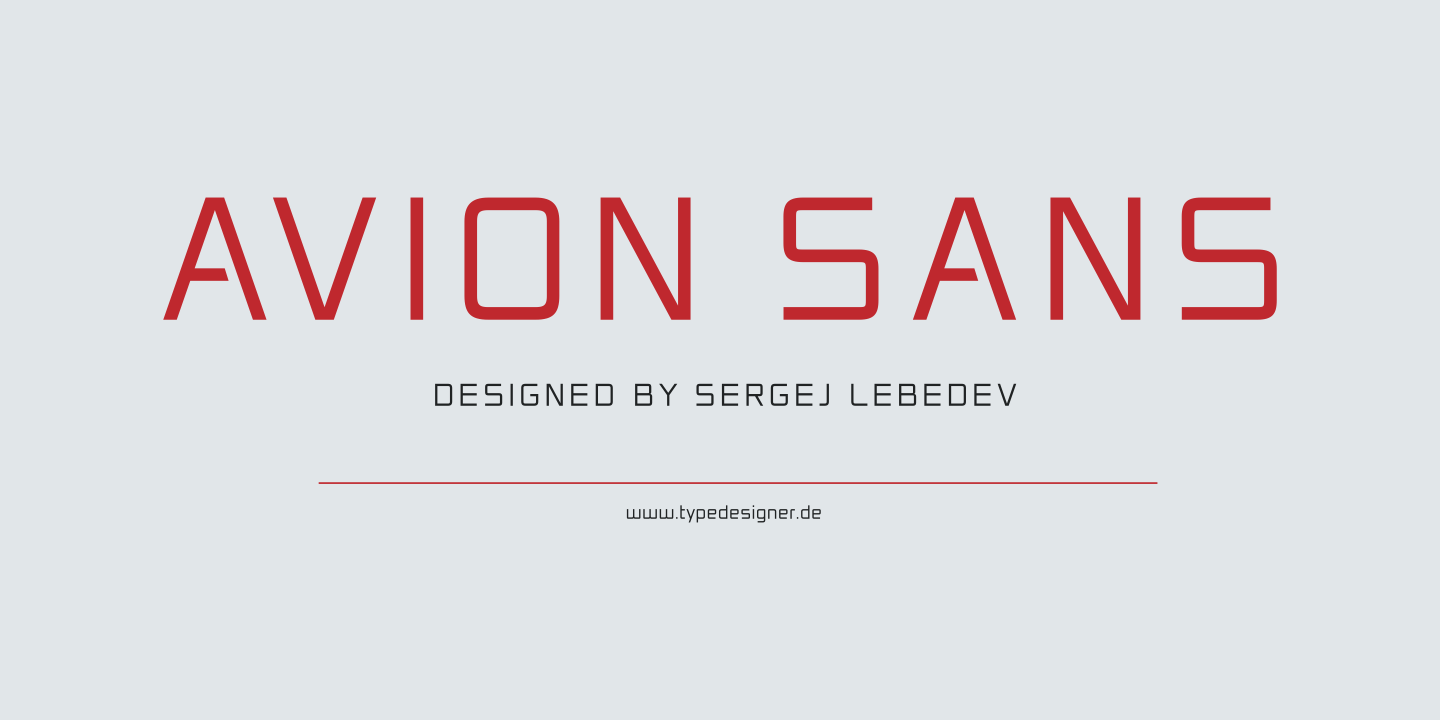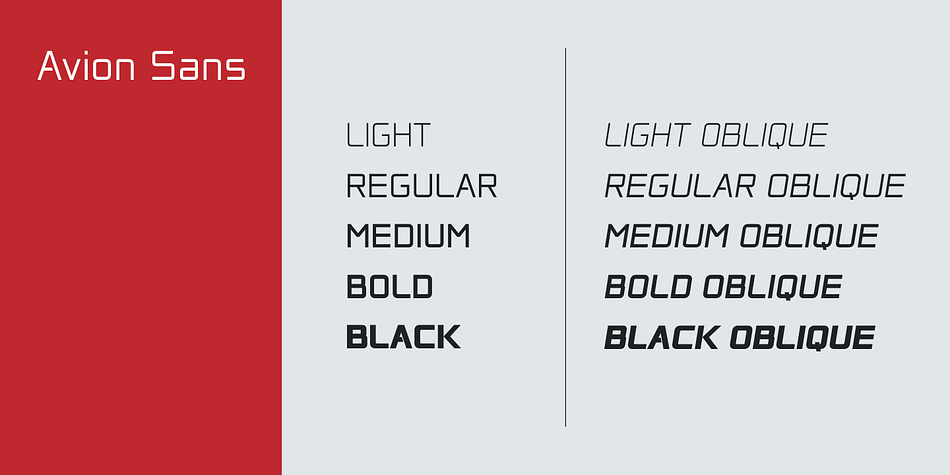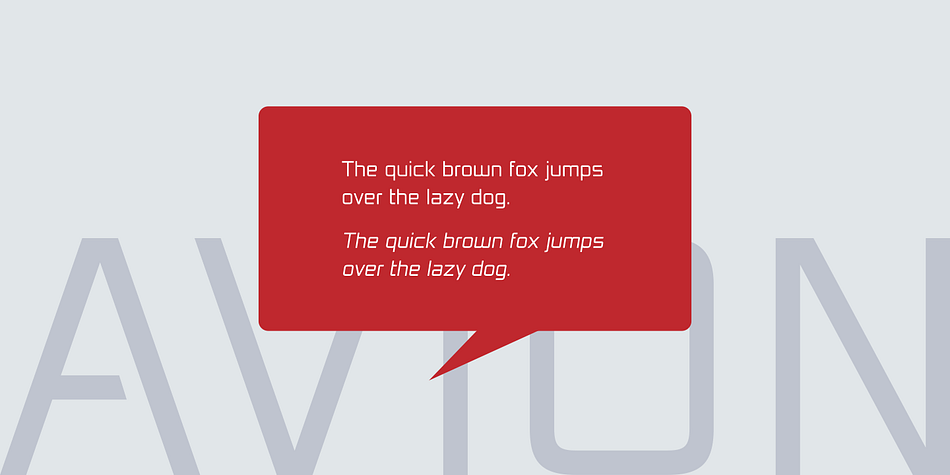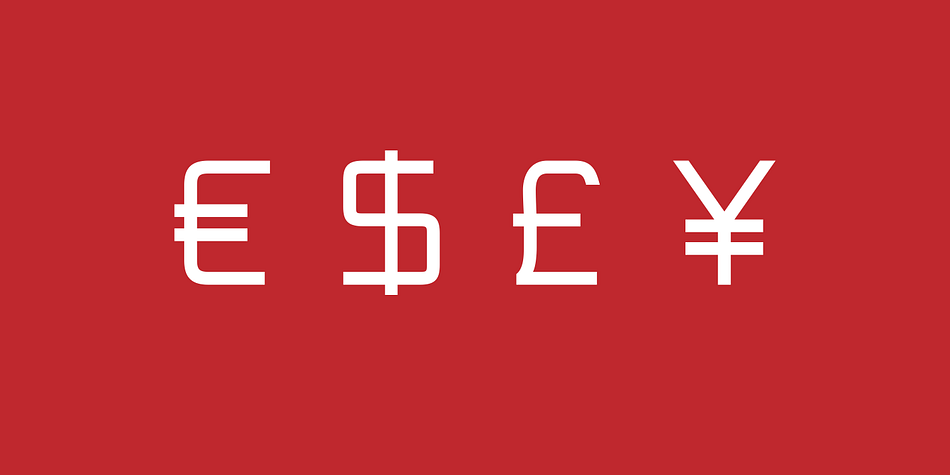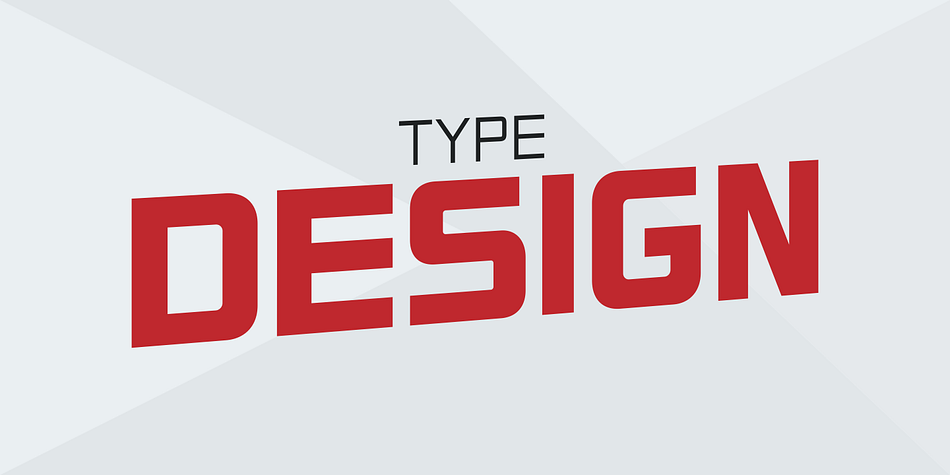
Designed by Sergej Lebedev, Avion Sans is a sans serif font family. This typeface has ten styles and was published by Sergej Lebedev.
The Avion Sans is high quality font family of 10 fonts, intelligently designed and engineered to ensure readability at any size, on any screen. Avion Sans has a modern, functional look, many OpenType features and is optimized for screens, so it will be a good choice for Desktop, Mobile Apps, eBooks and Websites. The font family has an international character set and supports many languages.
This font family is well suited for corporate design, product design and communication design. Clear, modern and constructed letter shapes give the font family an innovative design style. Each Avion Sans font was manually hinted to ensure great web and desktop performance.